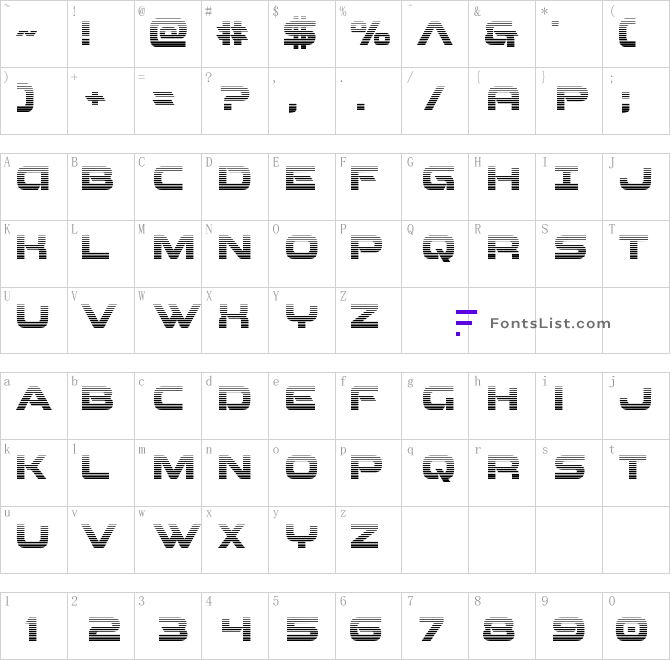
- Font Name:Beam Weapon Gradient
Beam-Weapon-Gradient.ttf is a very beautiful artistic font, Beam-Weapon-Gradient.ttf is widely used in the design and printing of various books and pictures,Beam-Weapon-Gradient.ttf has a strong visual impact,Beam-Weapon-Gradient.ttf is a commonly used font in newspapers, magazines and books, and is used in posters, e-commerce Poster design, store design, logo design, font design and other fields.Beam-Weapon-Gradient.